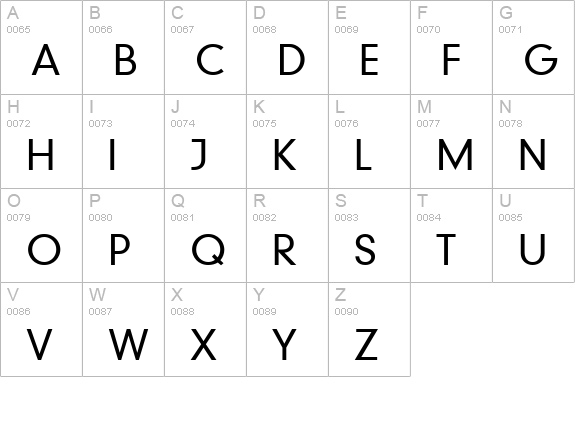
Parallax Grotesk Light SSi Light is a refined, elegant variant in the Parallax typeface family \xE2\x80\x94 well suited to elegant body text, refined sub-headings, and luxury branding.
Introducing Parallax Grotesk Light SSi Light, a font that exudes elegance and modernity with its clean lines and sleek design. This font is perfect for those seeking a sophisticated and contemporary look for their projects. Parallax Grotesk Light SSi Light offers a unique balance between simplicity and intricacy, making it suitable for a wide range of applications. Its light weight adds a touch of delicacy and grace, making it ideal for titles, headings, and body text alike. With its versatile nature, Parallax Grotesk Light SSi Light can effortlessly adapt to various design styles, from minimalistic to bold and expressive. It is a font that can truly enhance the visual impact of any project, be it a website, branding, packaging, or editorial design. What makes Parallax Grotesk Light SSi Light even more appealing is that it is available for free. Yes, you read that right! This font can be freely downloaded at FontsMarket.com, allowing you to elevate your designs without any additional cost. It's a golden opportunity to add a touch of sophistication and professionalism to your work, all while staying within your budget. So why wait? Take advantage of this remarkable font and unlock its full potential for your next creative endeavor. Download Parallax Grotesk Light SSi Light today at FontsMarket.com and let your designs shine with elegance and style.